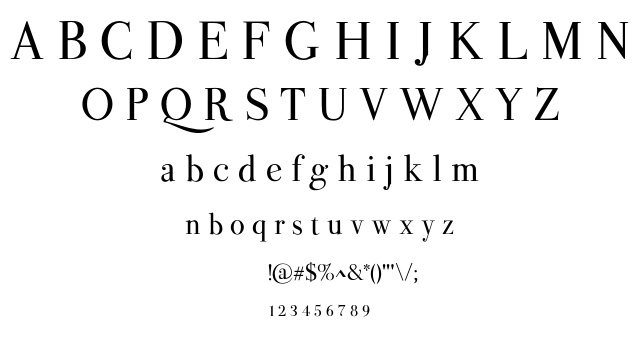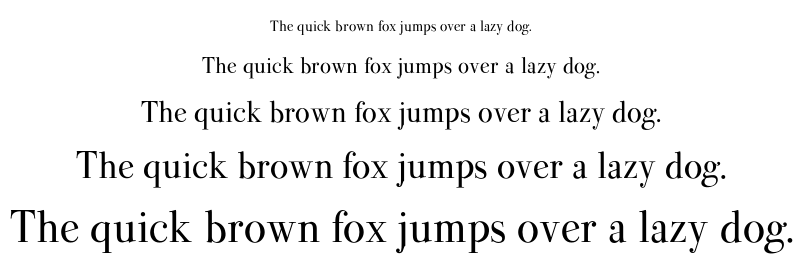
Valentina
Valentina Font
Valentina typeface is a sincere tribute to my grandmother in the form of typography and therefore bears her name. Valentina is a classic didone that follows some of the canons proposed by Bodoni in the eighteenth century but incorporates many of the characteristics of the antique Spanish punches of the time. It is a complete font of 457 glyphs, in which there are 125 alternative lower cases or the 46 ligatures.